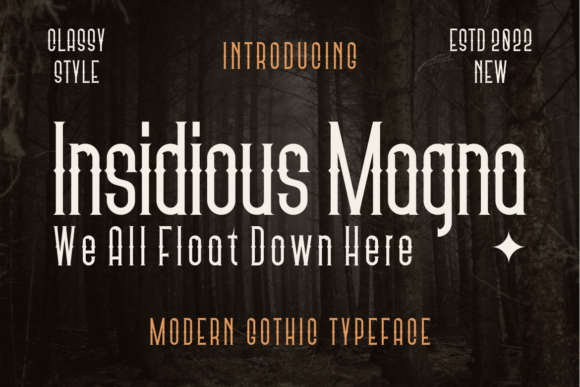
Journey into the realm of the extraordinary with Insidious Magna, a blackletter font that empowers your words with an air of dark charm and timeless elegance. This meticulously crafted font, presented by Marvadesign, is not just a collection of characters; it's a gateway to a world of captivating aesthetics and boundless creativity.
Within the intricate strokes and sharp edges of Insidious Magna lies a captivating charisma that draws attention like a magnet. Its balanced structure, reminiscent of a symphony's harmonious composition, ensures readability while preserving its striking visual appeal. Whether you seek to craft mesmerizing logos, tantalizing social media posts, or eye-catching headlines, Insidious Magna is your trusted companion.
Unleash your inner artist and let Insidious Magna's allure ignite your imagination. Its versatility knows no bounds, effortlessly adapting to a myriad of design styles and themes. From the mystical allure of fantasy realms to the gritty charm of urban landscapes, Insidious Magna seamlessly blends with your vision, adding a touch of sophistication and intrigue wherever it's employed.
Step into the spotlight and make a statement with Insidious Magna. Its captivating nature commands attention, ensuring your designs stand out from the mundane and commonplace. Let the boldness of Insidious Magna elevate your creations, transforming them into captivating masterpieces that resonate with your audience.
More than just a font, Insidious Magna is an experience, a journey into the extraordinary. It's not just about the letters; it's about the emotions it evokes, the stories it tells, and the impact it leaves on the hearts and minds of those who behold it.